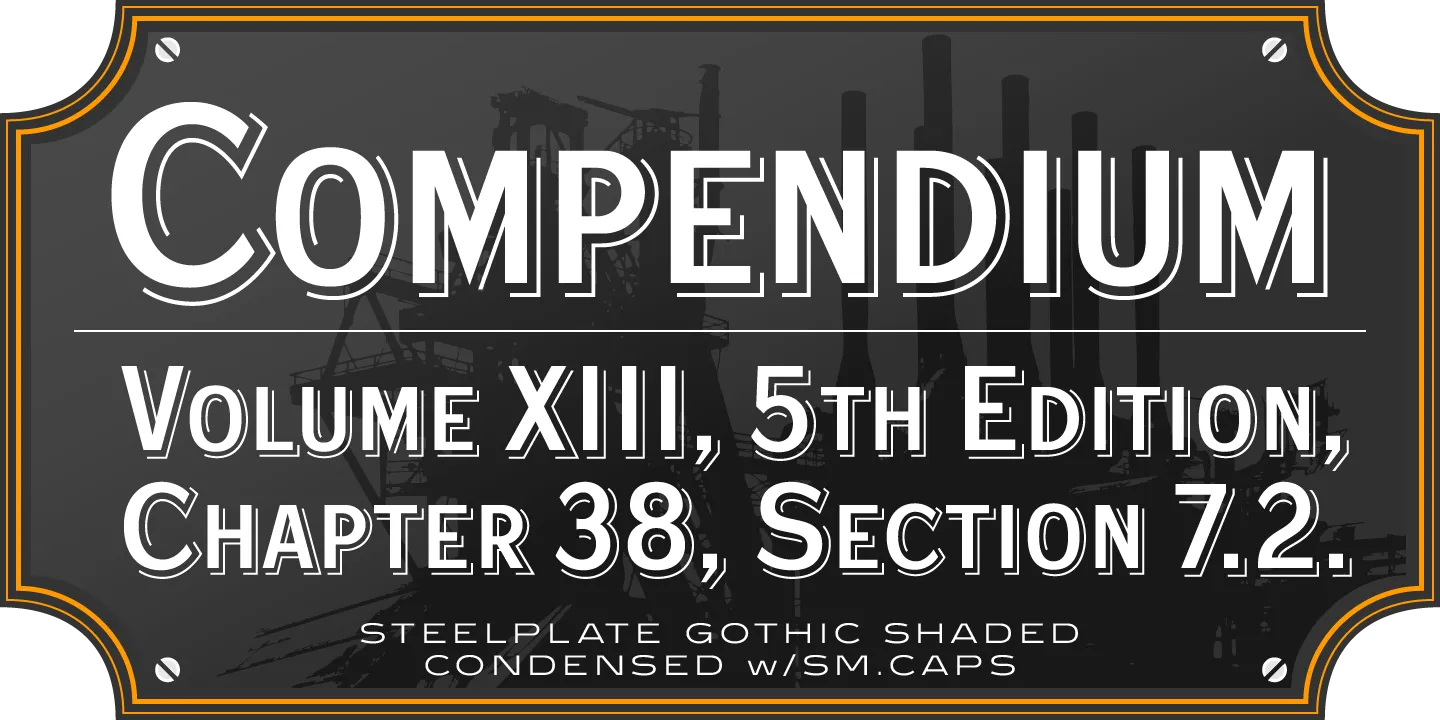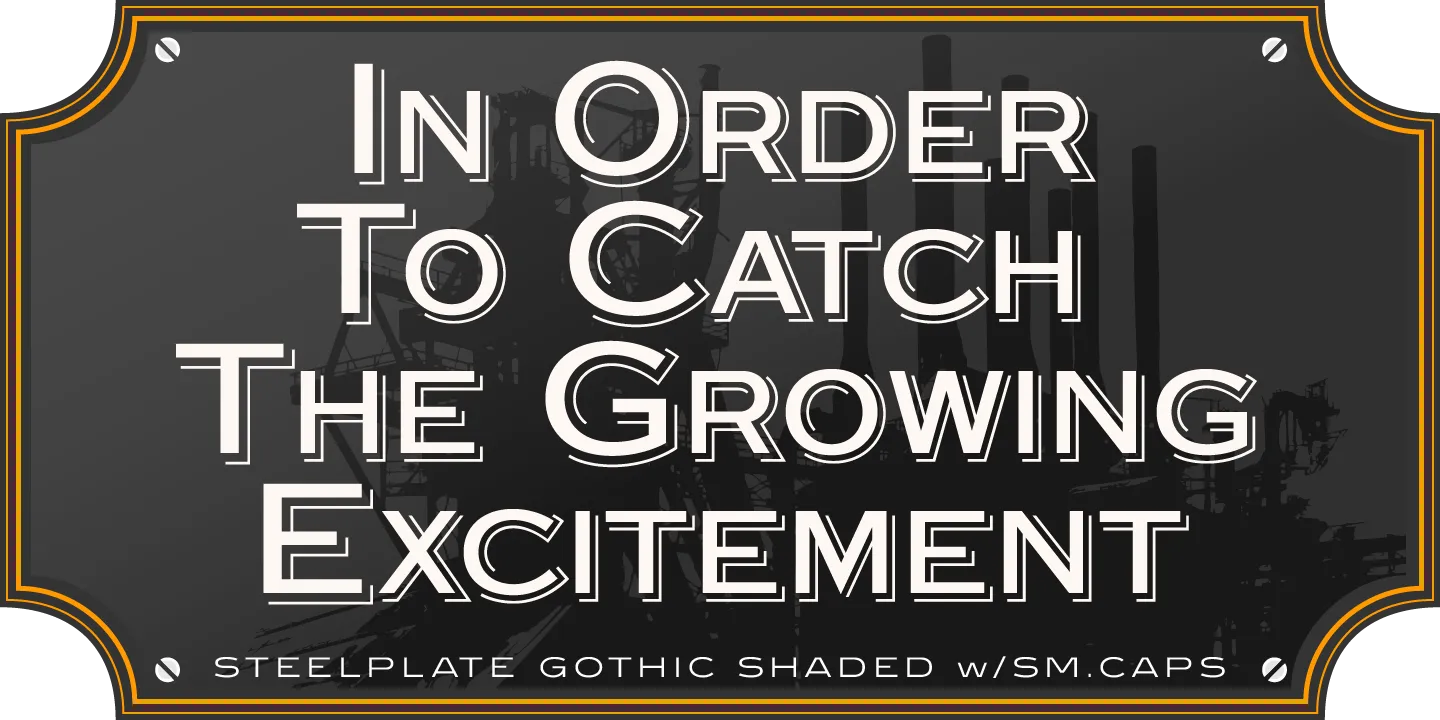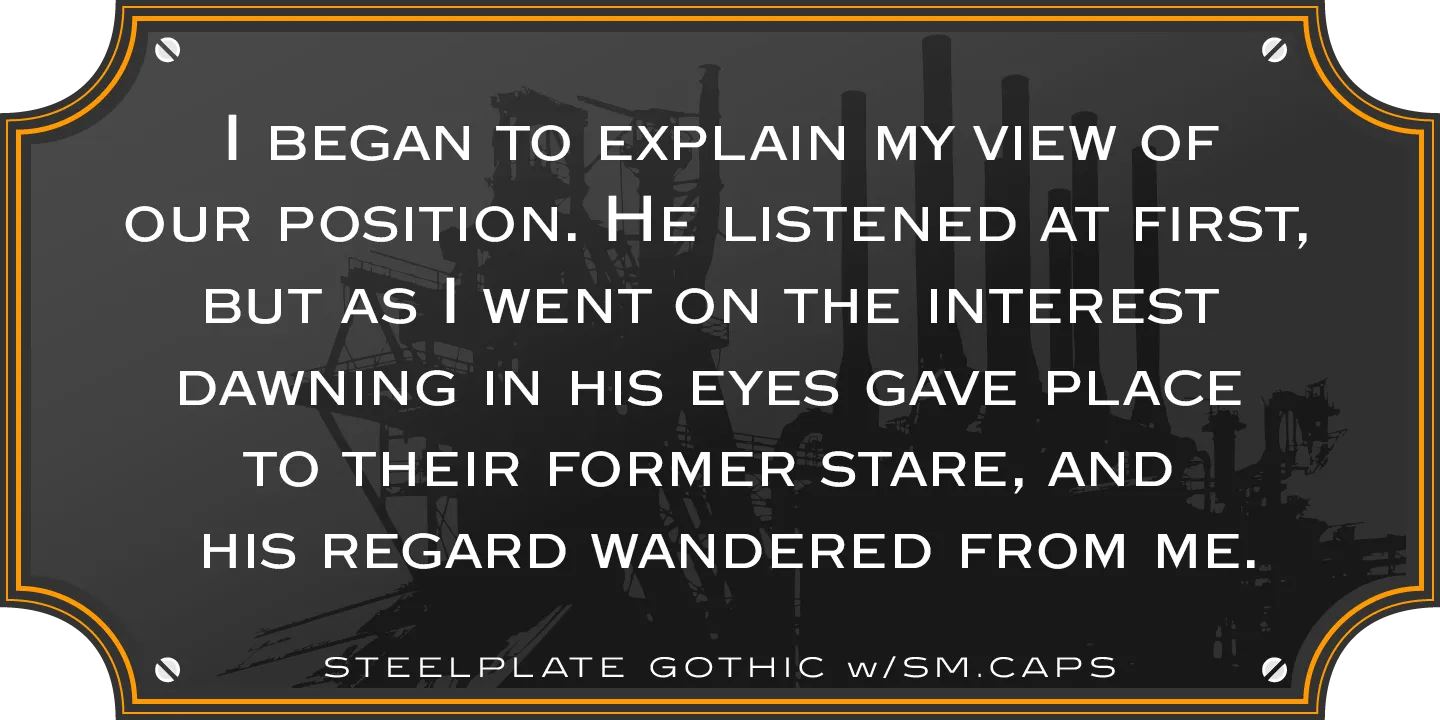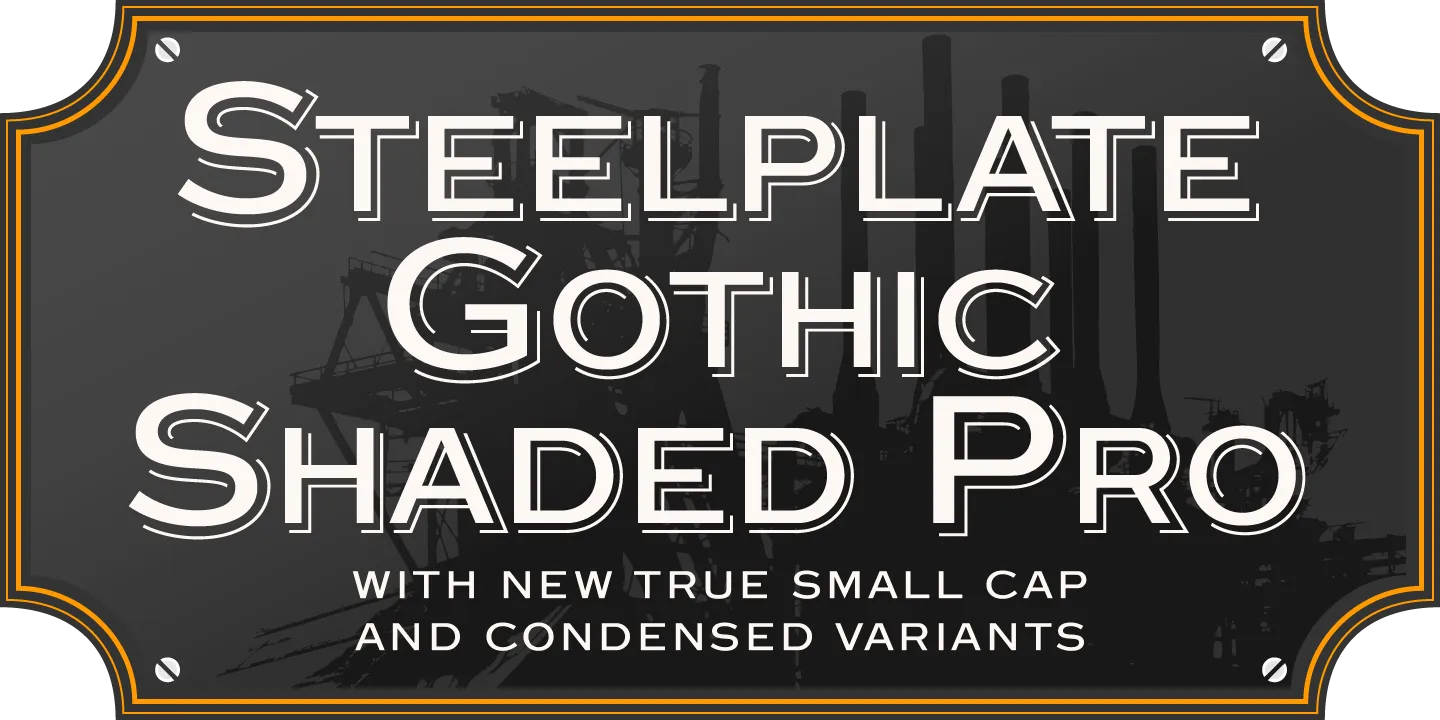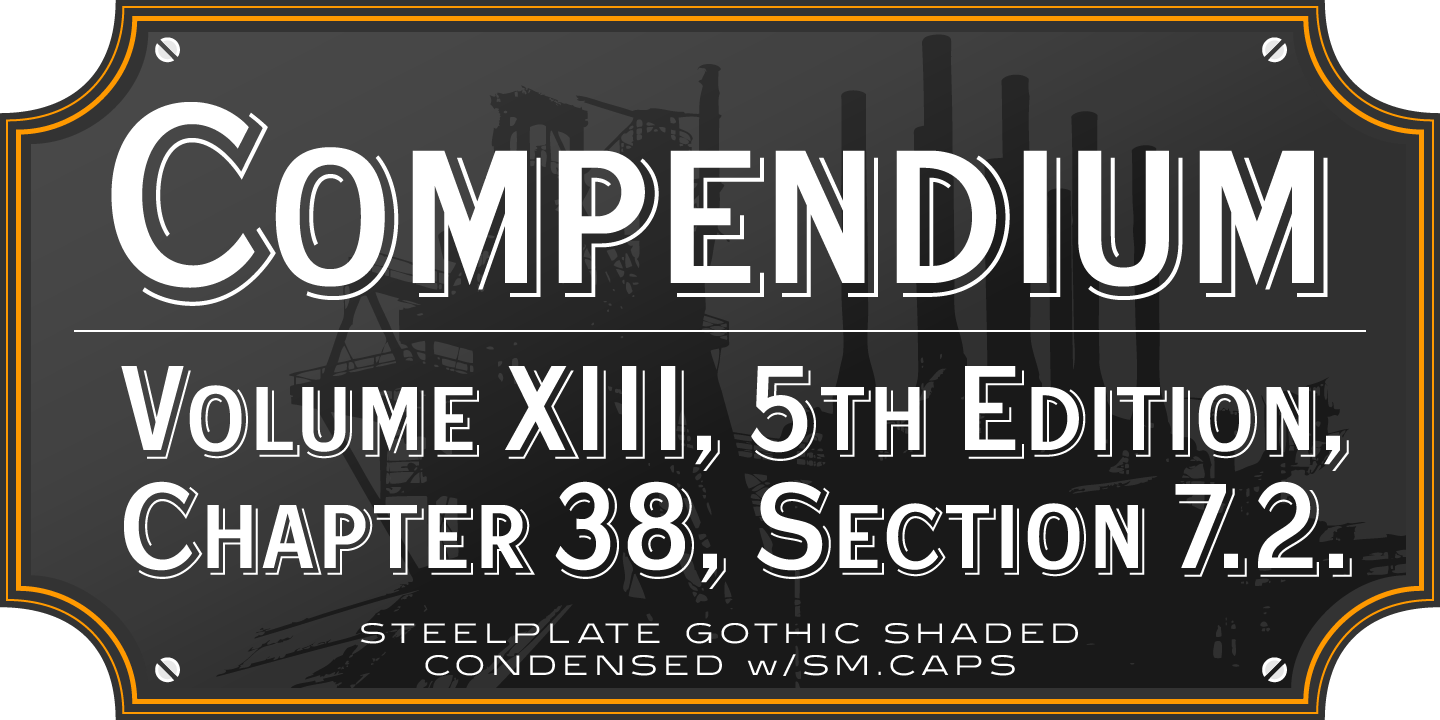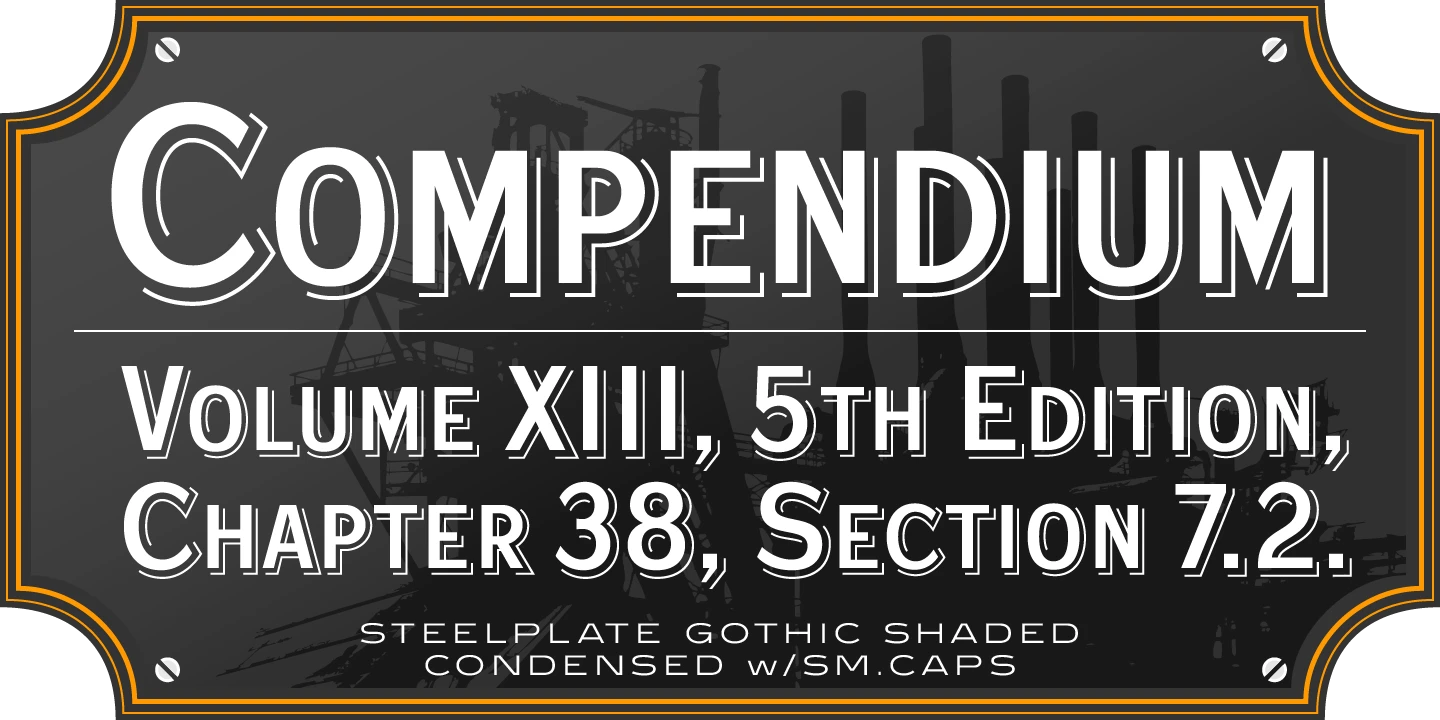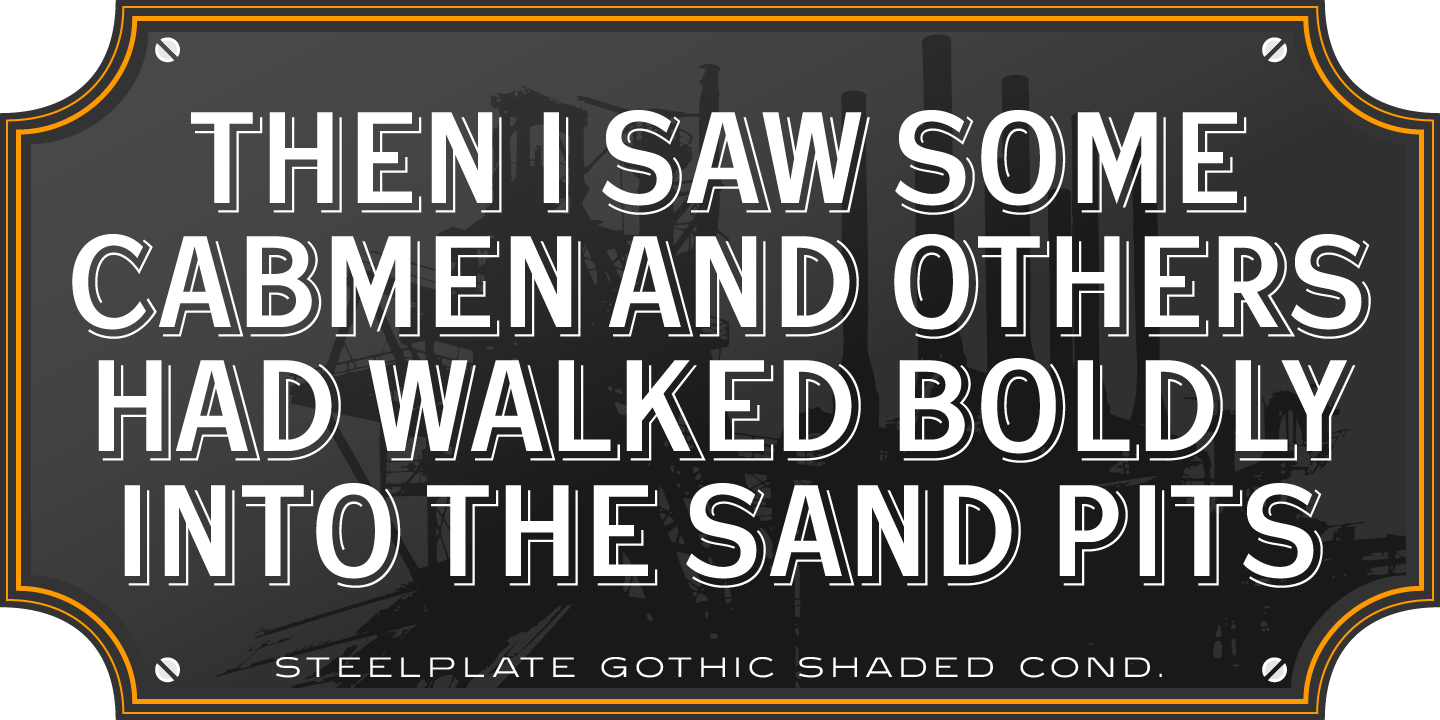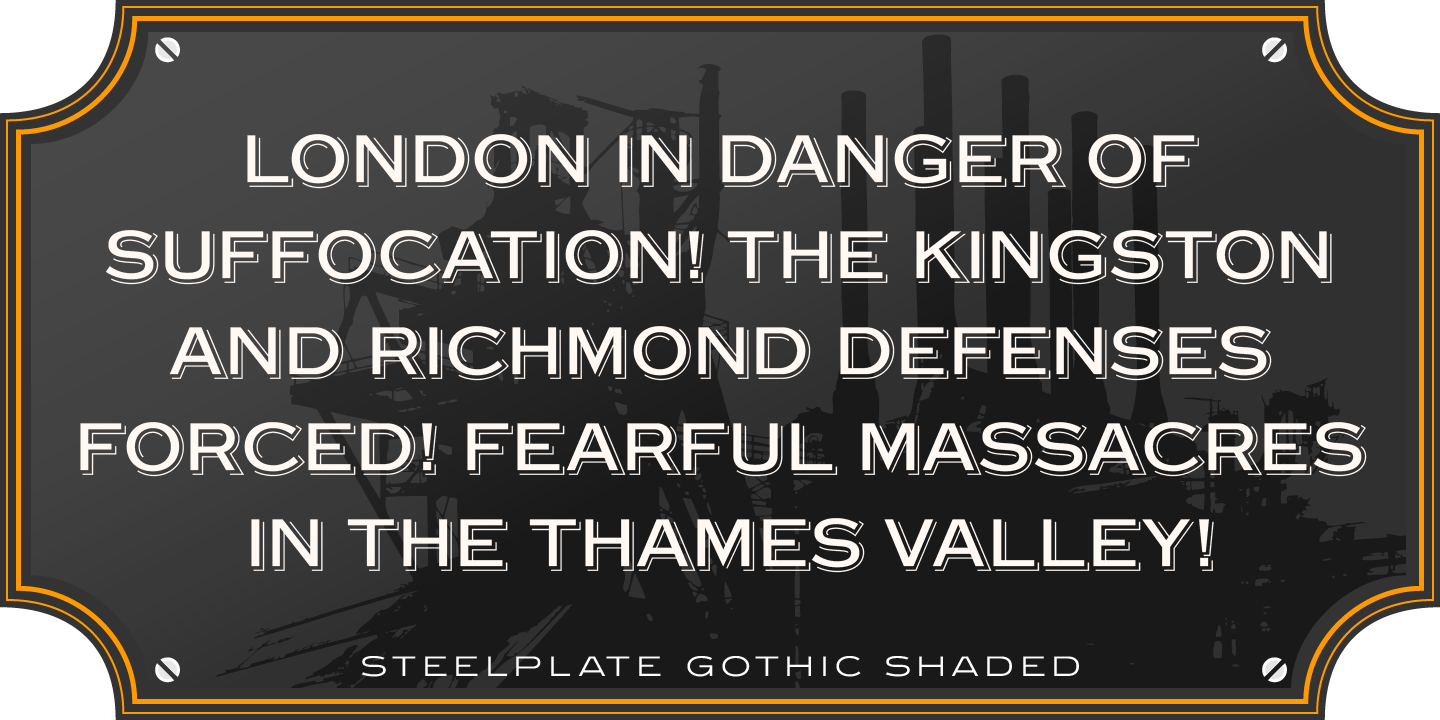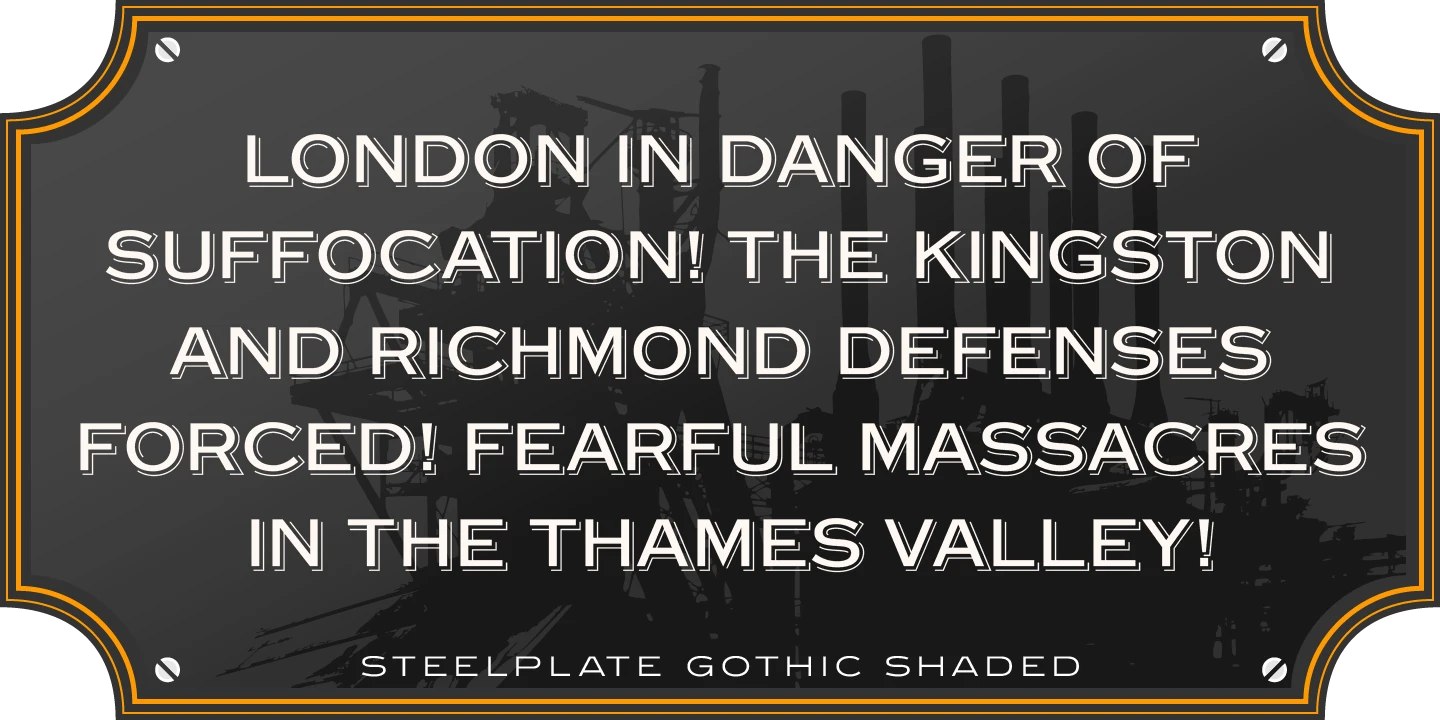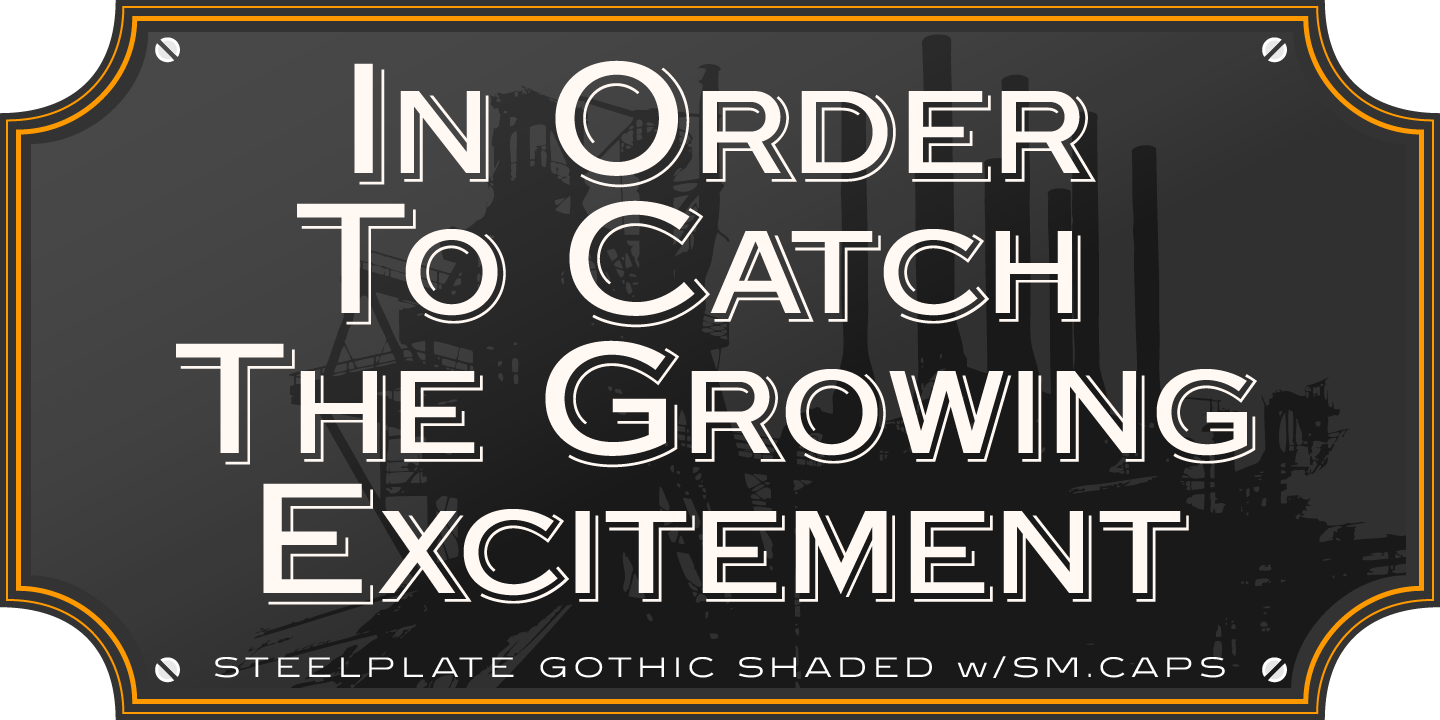
Steelplate Gothic Font Family
Steelplate Gothic is a sans serif font family with traditional and drop shadow weights. It shares letterform similarities to conventional Copperplate Gothic families, but has no spur serif endings. Most of the original designs came from the Western Type Foundry when BB&S acquired it in 1918; all were cut by Robert Wiebking. It was recast in 1954 by American Type Founders (ATF). Steve Jackaman (ITF) designed and produced a digital version of the original single weight in 1997. In 2017, Jackaman completely redrew and expanded the family, adding entirely new condensed variants and true small caps. Steelplate Gothic has a masculine, industrial feel, and works effortlessly at display and subhead sizes. It shares letterforms with its sans serif sister family, Barnsley Gothic.
OpenType Features
• Common Ligatures
• Fractions
• Ordinal Numerals
• Subscript
• Superscript